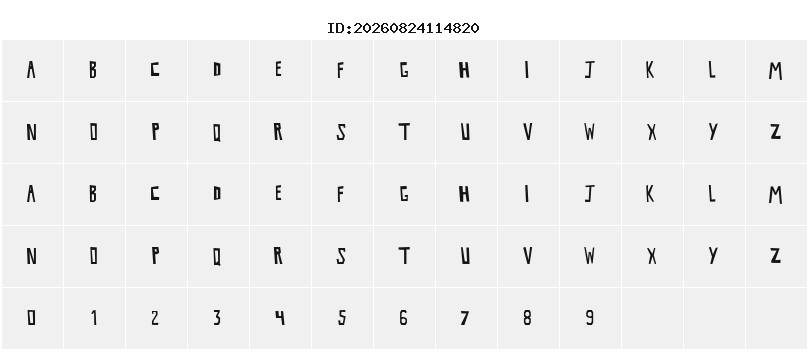
Sailors Preview
• Font Name: Sailors
• Full Font Name: Sailors
• Designer: Julie Morris
• Manufacturer: Julie Morris Design
About Sailors.ttf
Sailors.ttf is a modern, elegant sans-serif font designed for ultimate readability and visual harmony. Perfect for branding, headlines, web design, and print materials.